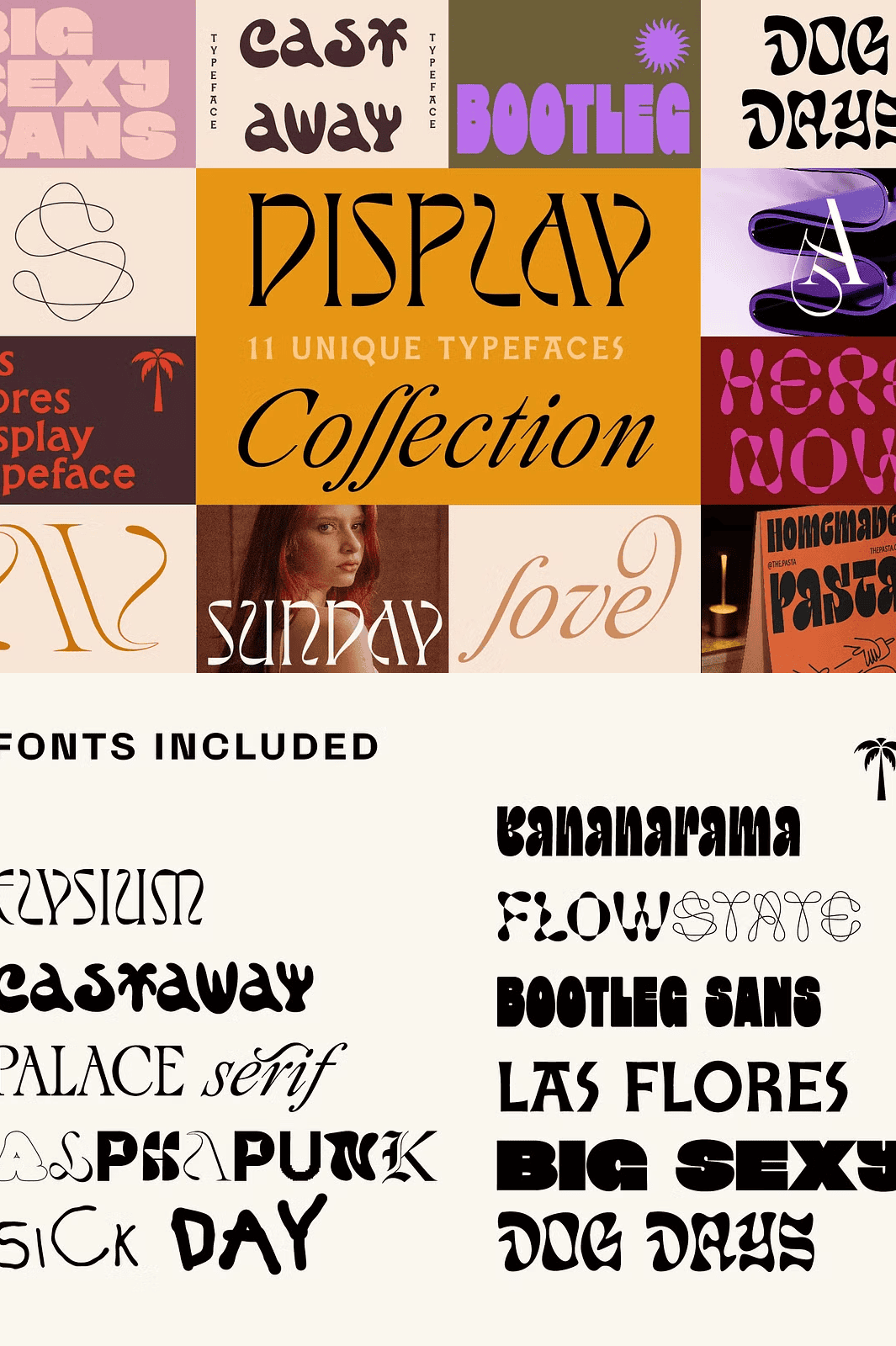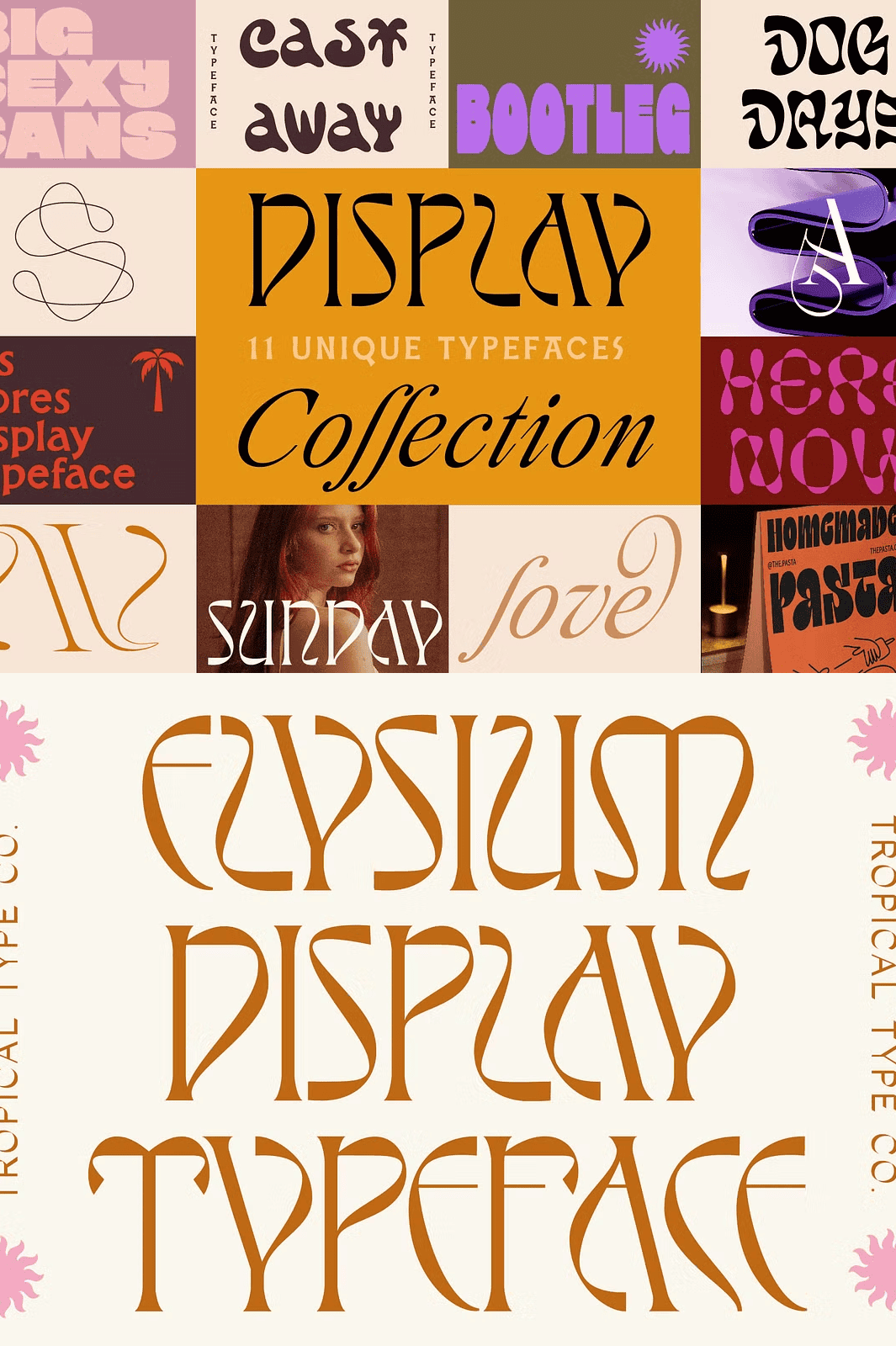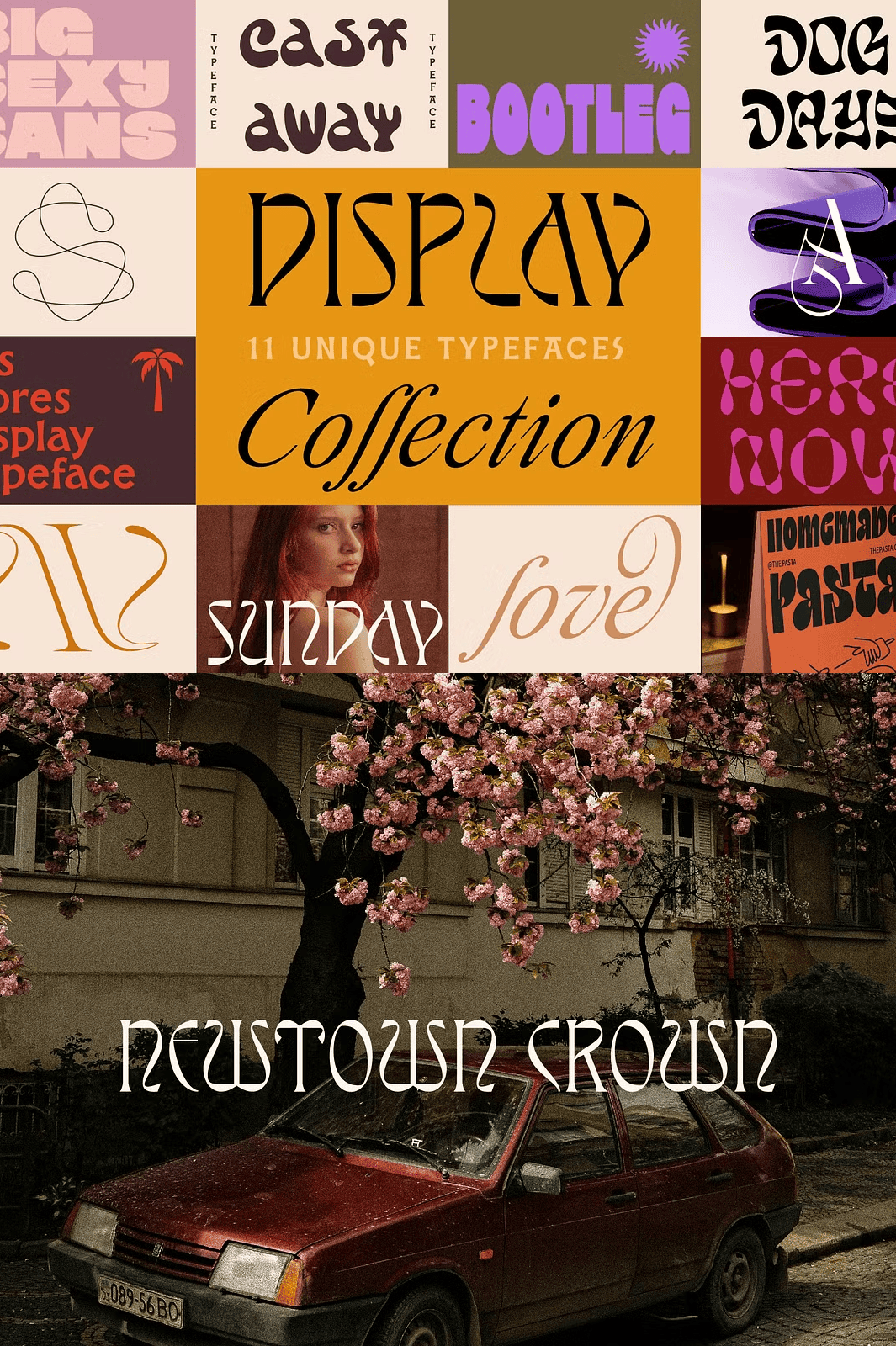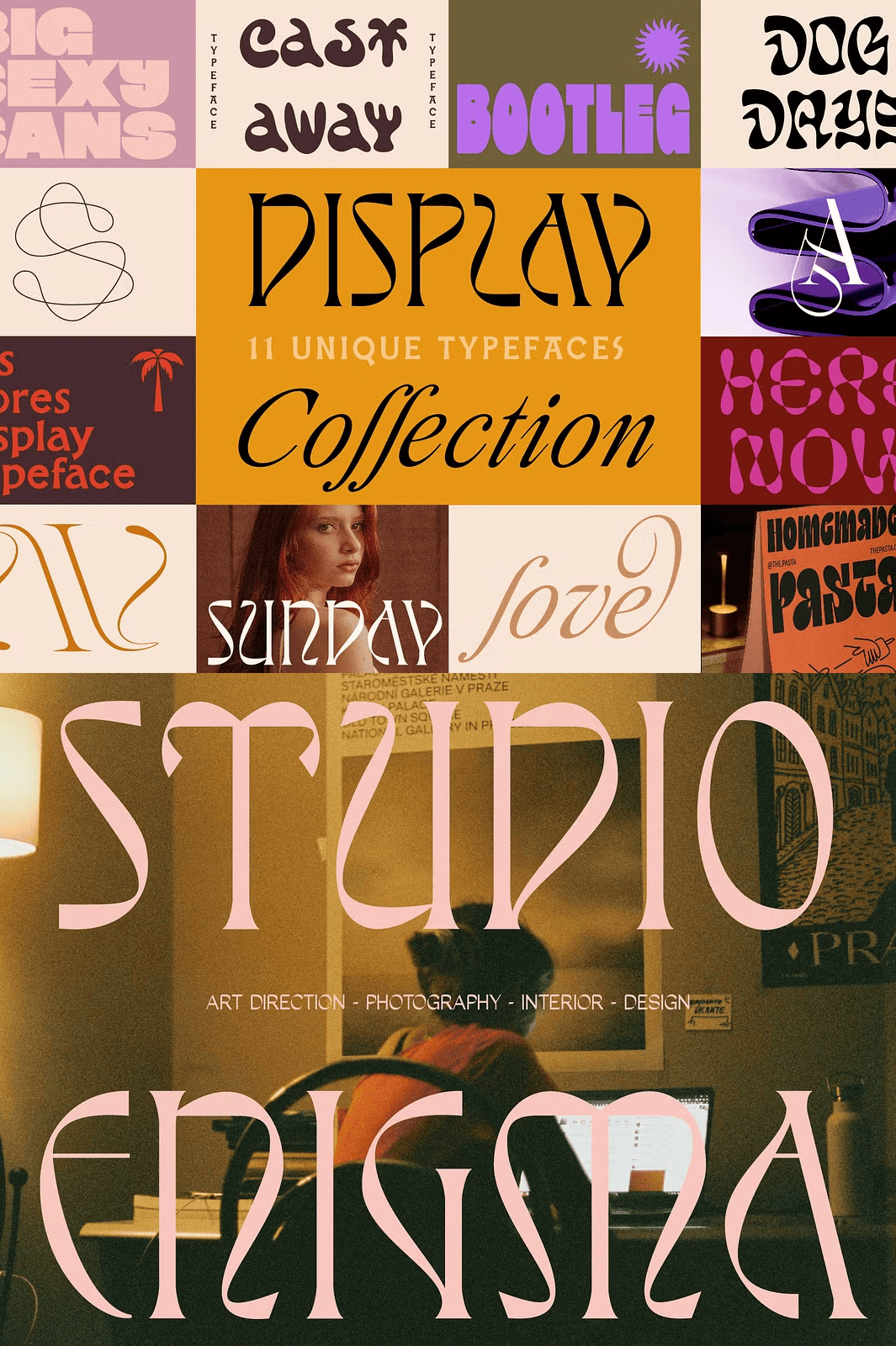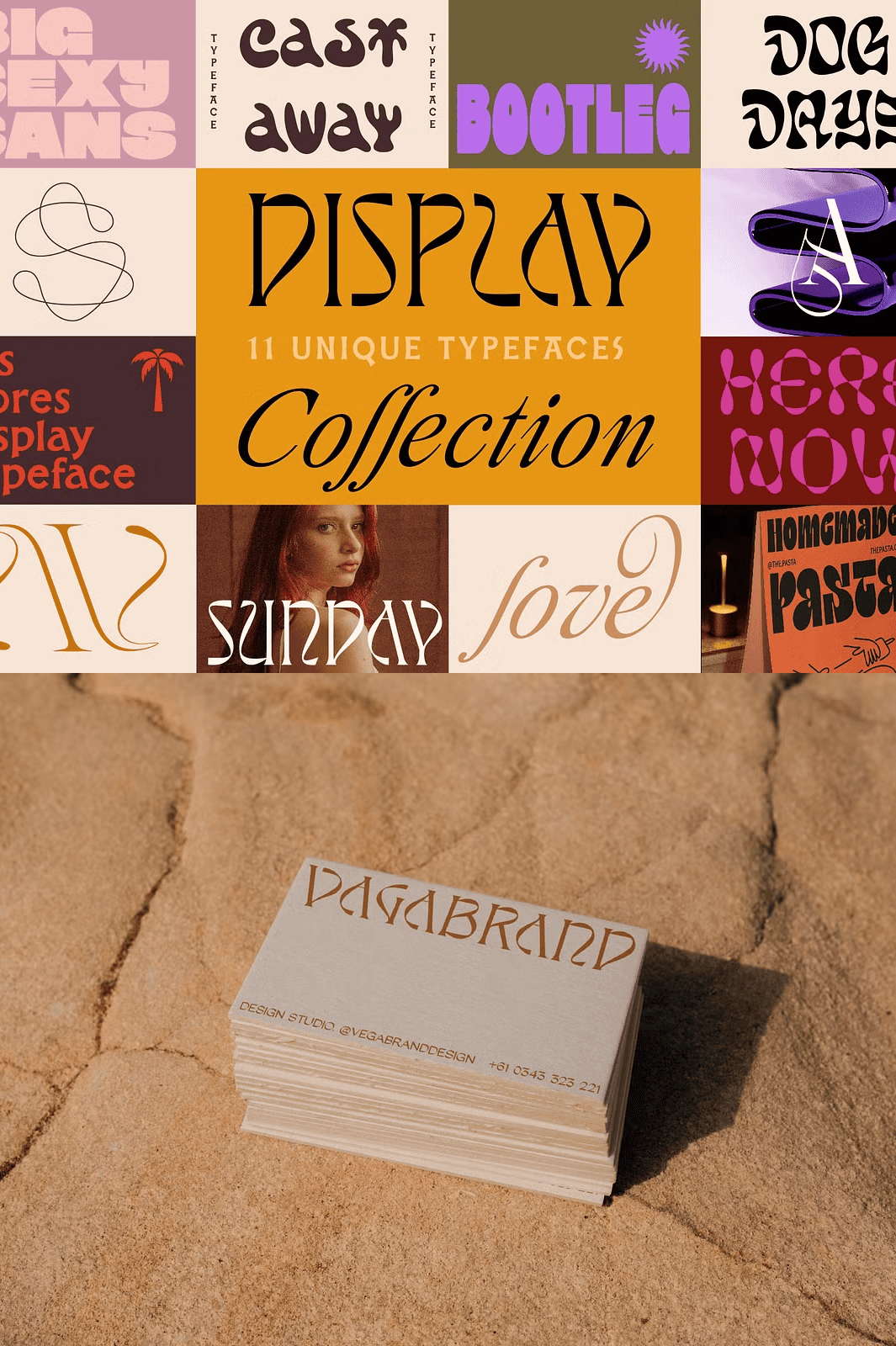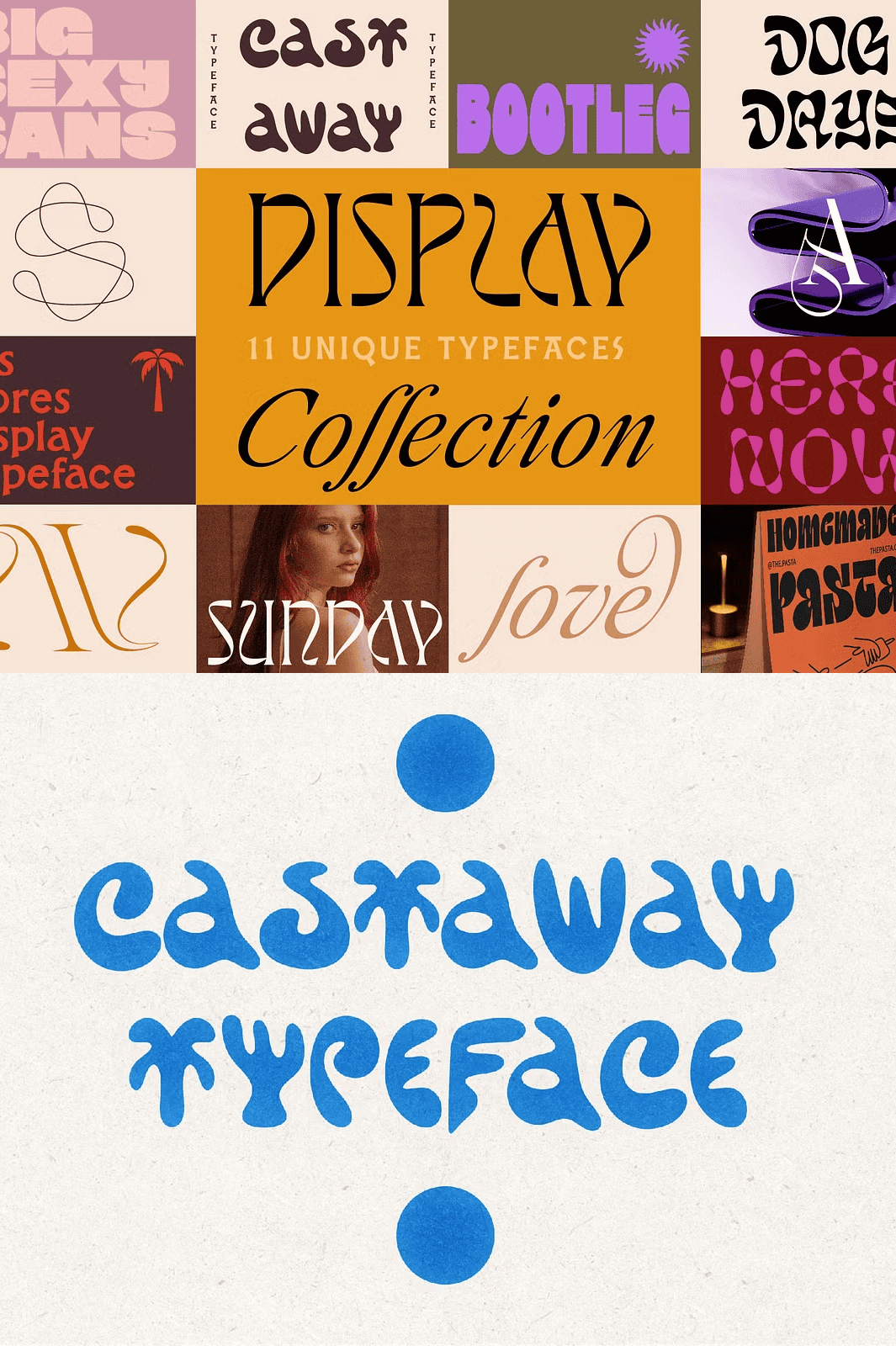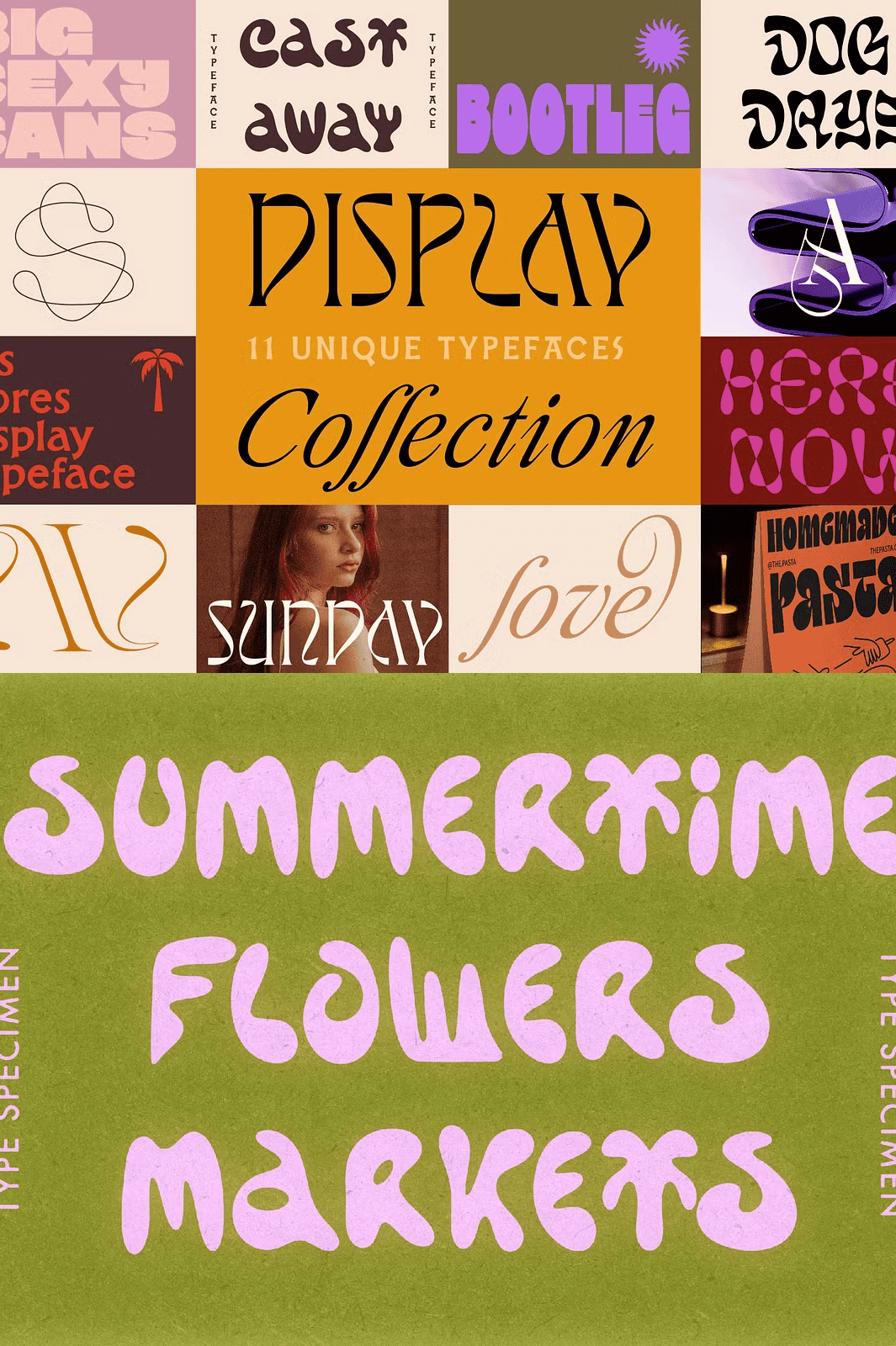
Unleash Creative Power with Eleven Distinct Typefaces
Explore a Curated Set of Modern, High‑Impact Fonts
Step into a world of limitless design possibilities with the **New Display Font Collection**. This carefully crafted bundle gathers eleven of my most recent releases, each engineered to give your projects a strong visual voice. Whether you’re designing a brand identity, a promotional poster, or a dynamic website, these typefaces deliver crisp, readable forms that work across every medium. By purchasing the entire collection, you save a significant amount of money while gaining the freedom to mix‑and‑match styles without worrying about compatibility.
Complete Font Roster – Eleven Versatile Styles
From Futuristic Elegance to Playful Energy, Every Style Has a Role
- ELYSIUM – Clean, futuristic lines that bring a futuristic edge to tech‑forward branding.
- CASTAWAY – A rugged, distressed slab perfect for outdoor‑themed projects.
- PALACE – Elegant, high‑contrast serif that adds regal sophistication.
- ALPHA‑PUNK – Edgy, rebellious characters built for street‑wear graphics.
- SICK‑DAY – Quirky, hand‑drawn forms that inject personality into any layout.
- BANANARAMA – Playful, rounded shapes ideal for children’s books and casual branding.
- FLOWSTATE – Smooth, flowing strokes that enhance editorial layouts.
- BOOTLEG SANS – Minimalist sans‑serif with a modern twist for clean interfaces.
- LAST FLORES – Floral‑inspired serif that adds a touch of nature‑inspired elegance.
- BIG SEXY – Bold, attention‑grabbing display for headlines that demand notice.
- DOG DAYS – Playful, retro‑inspired lettering that captures summertime fun.
Extensive Multilingual Glyph Set
Comprehensive Character Support for Global Projects
Each family includes a robust set of non‑English glyphs, covering accented characters such as ą á â à ä å ã æ ć ç ę é ê è ë í î ì ï ı ł ñ ń ó ô ò ö õ ø œ ś š ß ú û ù ü ý ÿ ž ź ż
and their uppercase counterparts. This ensures your multilingual designs remain consistent and professional, whether you’re creating a European brochure or an international e‑commerce site.